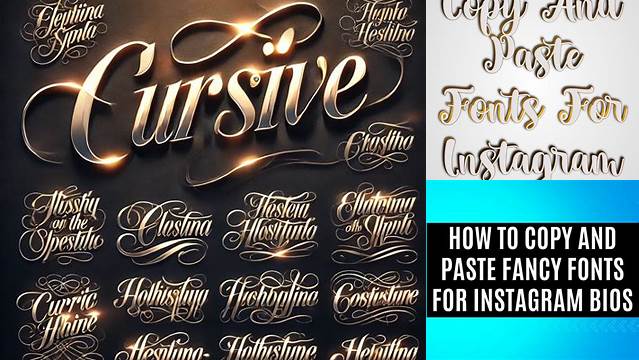
Cursive Fonts For Instagram: Copy & Paste Guide
Hey guys! Want to spice up your Instagram game with some fancy cursive fonts? You're in the right place! We're diving deep into the world of cursive fonts, specifically how to copy and paste them for Instagram. This guide is all about making your profile stand out, grabbing attention, and expressing yourself in a unique way. Let's get started! We'll cover everything from the basics of why cursive fonts are awesome to some cool copy-and-paste tricks and even some extra tips for using them effectively. So, buckle up and get ready to transform your Instagram feed! The key to a killer Instagram profile is originality, and nothing screams originality like a well-placed, stylish cursive font. Let's explore the world of cursive fonts and level up your Insta game!
H2: Why Use Cursive Fonts on Instagram?
Alright, let's talk about why you should even bother with cursive fonts for your Instagram. Simply put, they make your profile pop! In a sea of standard fonts, cursive fonts instantly grab attention. They add a touch of elegance, personality, and creativity that can't be matched by the default options. Using cursive fonts is a simple yet effective way to differentiate yourself, whether you're a business trying to attract new customers or an individual looking to express your unique style. They can make your profile name, bio, captions, and even your Instagram stories stand out. Think of it like this: a well-crafted cursive font is like a custom-designed logo for your words. It tells the world that you care about your presentation and that you're willing to go the extra mile to stand out from the crowd. Cursive fonts convey a sense of sophistication, playfulness, or even mystery, depending on the style you choose. They're a great way to add a personal touch, which is something that’s always welcomed in today’s digital world. It's an excellent tool to enhance your brand's identity or to simply showcase your personality to your followers. Using them consistently helps create a memorable brand image.
Moreover, cursive fonts create a visual hierarchy. By using a unique font for your bio or your call to action, you can draw the reader's attention to important information. In a world that’s saturated with content, visual cues help people decide what’s worth their time. It allows you to highlight special offers, important announcements, or key phrases. Cursive fonts work great when paired with bold or italic styles as well. This layering can make your text more readable and appealing. The impact of a well-chosen font on Instagram is often underestimated. A change in font can influence the viewer's mood, create an instant connection, and tell your story in a more compelling way. It's a way to stand out from the competition. They can be perfect for highlighting quotes, adding a touch of personality to your brand's tone, or announcing special promotions. Adding a creative font style on Instagram can significantly elevate your brand's aesthetic.
Furthermore, cursive fonts can be integrated seamlessly into your overall aesthetic. Whether you have a minimalist, vibrant, or classic theme, there is a cursive font that complements your style perfectly. These fonts offer versatility, allowing you to align your textual design with your visual content. You can create a cohesive and visually engaging feed that captivates your audience. Plus, utilizing cursive fonts creates a visual identity that your audience will remember. This is particularly important for businesses and influencers, as a consistent brand image increases audience recognition and trust. Think about how your brand looks and what emotions you want to evoke, and then select a cursive font that aligns with those goals. It’s not just about making your text look good; it's about creating a lasting impression.
Moreover, these font generators offer a vast selection of cursive styles. You are not limited to just one or two. You can choose from elegant scripts, playful swirls, and everything in between. This gives you the freedom to match the font to your message and your personal style. You can also find font generators that offer previews of what the font will look like. This helps to ensure that you select the perfect font for your specific needs. Keep in mind that the visual effect can vary depending on the device and operating system. This is especially true for some of the more intricate fonts. This is a great opportunity to get creative and express yourself. It’s easy to add a unique flair to your Instagram profile.
H3: Step-by-Step Guide to Using Cursive Fonts with Font Generators
Alright, let's walk through the process step by step so you can get started right away. The first step is to find a reliable font generator. A quick search online will bring up a variety of options. Many of these are free and easy to use. Once you've chosen a generator, type the text you want to convert into the input field. The generator will instantly convert it into several different font styles. Scroll through the options, and find a cursive font that you like. Most generators will have a preview feature that allows you to see how the font will look before you use it. This is very helpful, especially if you are using it for a logo. Now, copy the formatted text. The process varies slightly depending on the generator, but usually, you can simply click a button to copy the text to your clipboard.